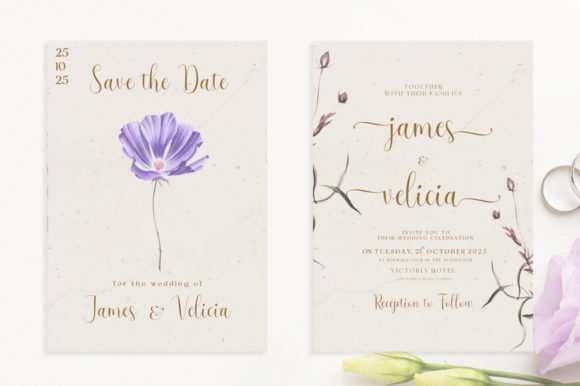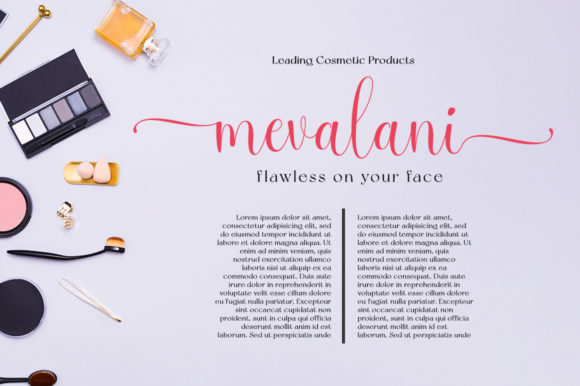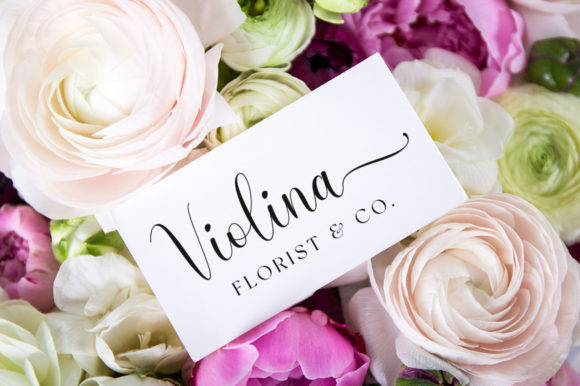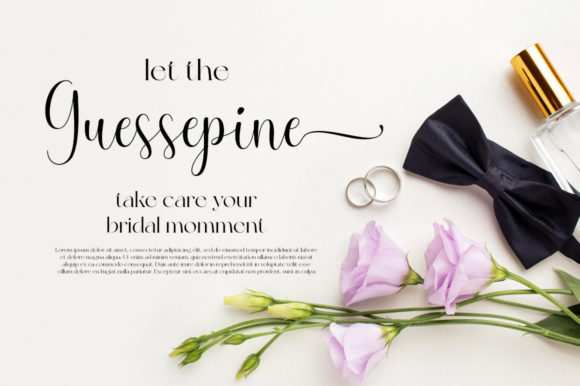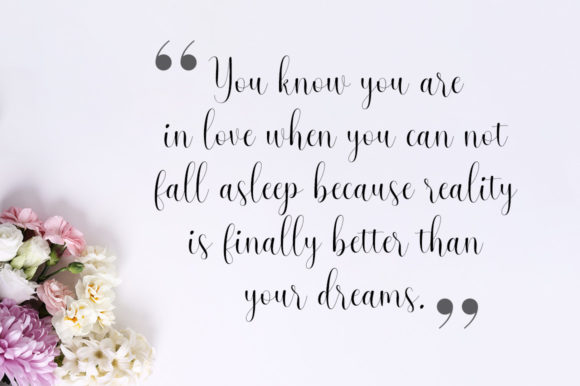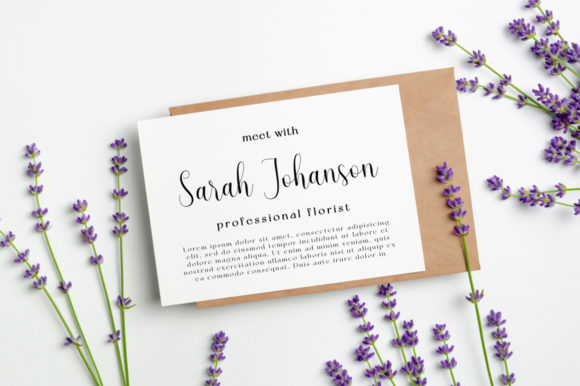
Introducing Elizabeth Font: The Delicate Script Font for Romantic Designs
Are you a designer or crafter looking for a font that exudes elegance and romance? Look no further than Elizabeth Font, a beautiful and delicate script font that’s perfect for creating stunning cards, invitations, letters, and more. In this article, we’ll dive into the features and benefits of Elizabeth Font, and explore how you can use it to add a touch of sophistication and whimsy to your designs.
What is Elizabeth Font?
Elizabeth Font is a lovely script font that’s designed to bring a touch of romance and elegance to your designs. With its delicate strokes and flowing curves, this font is perfect for creating beautiful and feminine designs that are sure to impress. Whether you’re creating wedding invitations, greeting cards, or social media graphics, Elizabeth Font is the perfect choice.
One of the standout features of Elizabeth Font is its PUA (Private Use Area) encoding. This means that you can access all the glyphs and swashes with ease, giving you complete creative control over your designs. With PUA encoding, you can easily insert special characters, ligatures, and other decorative elements into your text, making it easy to create stunning and unique designs.
Uses for Elizabeth Font
Elizabeth Font is incredibly versatile, and can be used for a wide range of design projects. Here are just a few ideas to get you started:
- Wedding Invitations: Create beautiful and elegant wedding invitations that set the tone for a romantic and memorable day.
- Greeting Cards: Use Elizabeth Font to create stunning greeting cards for birthdays, anniversaries, and other special occasions.
- Social Media Graphics: Add a touch of elegance and sophistication to your social media graphics, including Facebook posts, Instagram stories, and more.
- Stationery: Create beautiful and feminine stationery, including letterheads, journals, and notebooks.
Benefits of Using Elizabeth Font
So why choose Elizabeth Font for your design projects? Here are just a few benefits of using this beautiful script font:
- Elegant and Romantic: Elizabeth Font exudes elegance and romance, making it perfect for designs that require a touch of sophistication.
- Versatile: This font is incredibly versatile, and can be used for a wide range of design projects.
- Easy to Use: With PUA encoding, you can easily access all the glyphs and swashes, making it easy to create stunning designs.
- High-Quality: Elizabeth Font is a high-quality font that’s designed to deliver exceptional results.
Tips for Using Elizabeth Font
Here are a few tips for using Elizabeth Font in your design projects:
- Pair with Other Fonts: Elizabeth Font pairs beautifully with other fonts, including sans-serif fonts and serif fonts.
- Experiment with Colors: Try experimenting with different colors and textures to add depth and interest to your designs.
- Use Swashes and Glyphs: Don’t be afraid to get creative with the swashes and glyphs available in Elizabeth Font.